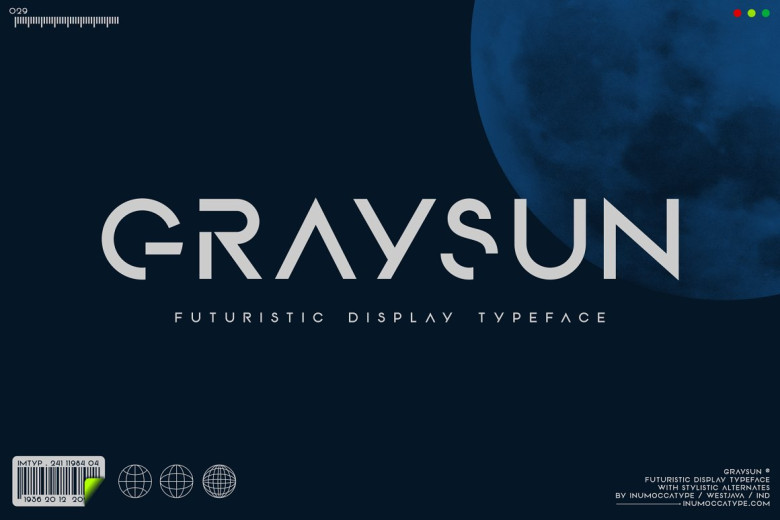
Graysun Font
GraySun Futuristic Font simple, strong Character and eyecatching. Inspiration by Modern Technology, Synthwave, Sci-fi Movie Poster, science and Space Theme. Really great font to covering your Project, like Lettering, Website Interface, Magazine, Branding, Poster, wedding invitations, Quotes Lettering, Logos, and more your project design.
Graysun Display Font